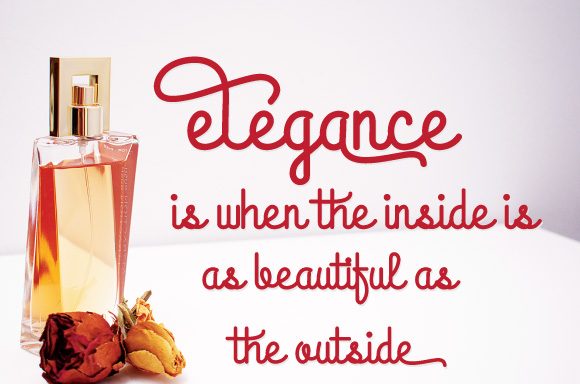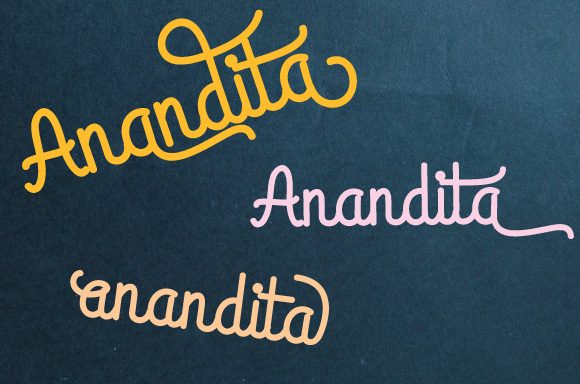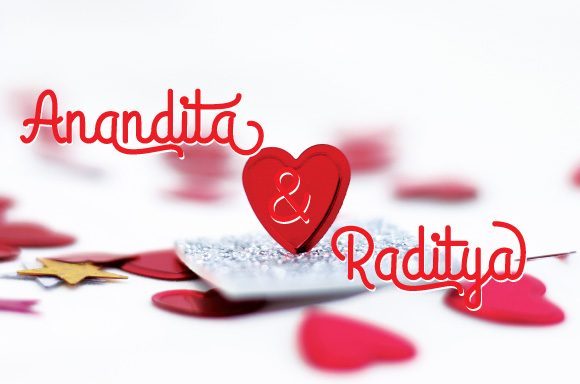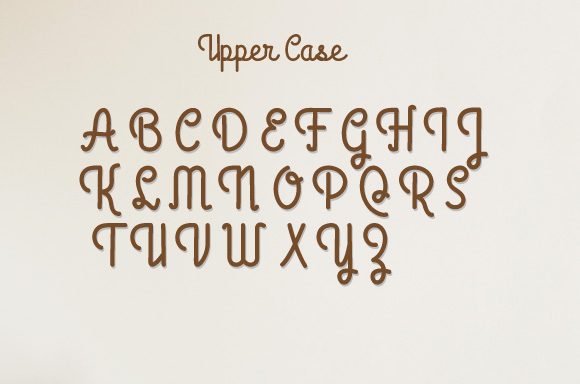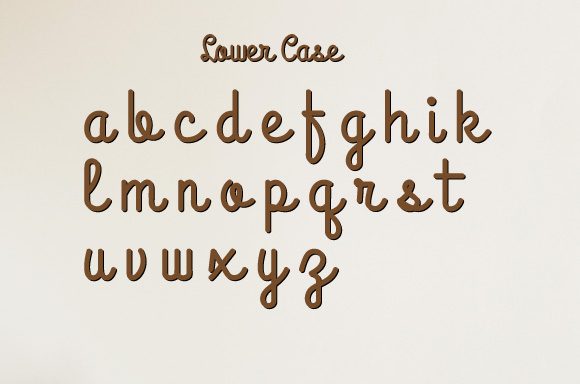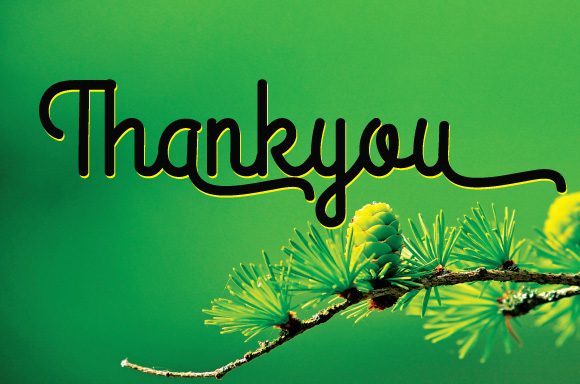
Black Script Letter Font
About Black Script Letter Font
Black Script Letter is a delicate, elegant and flowing handwritten font. It has beautiful and well balanced characters and as a result, it matches a wide pool of designs. Add it to your most creative ideas and notice how it makes them come alive!